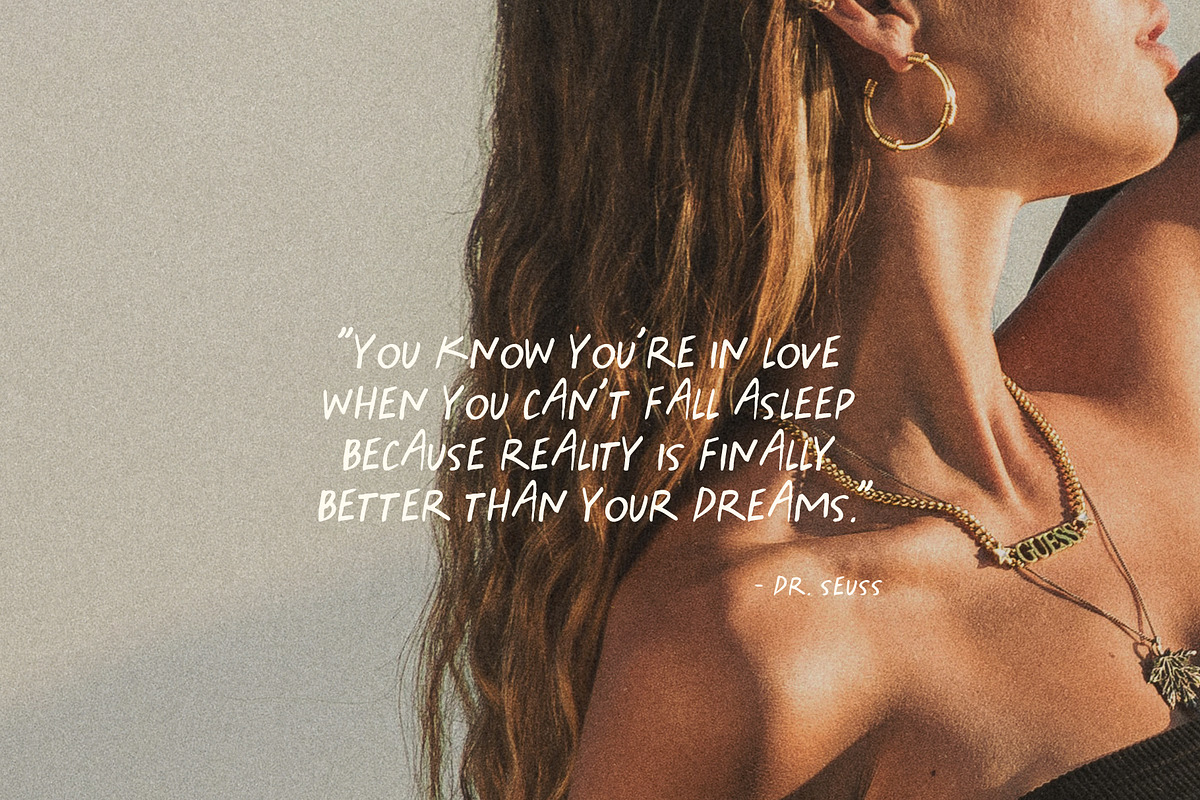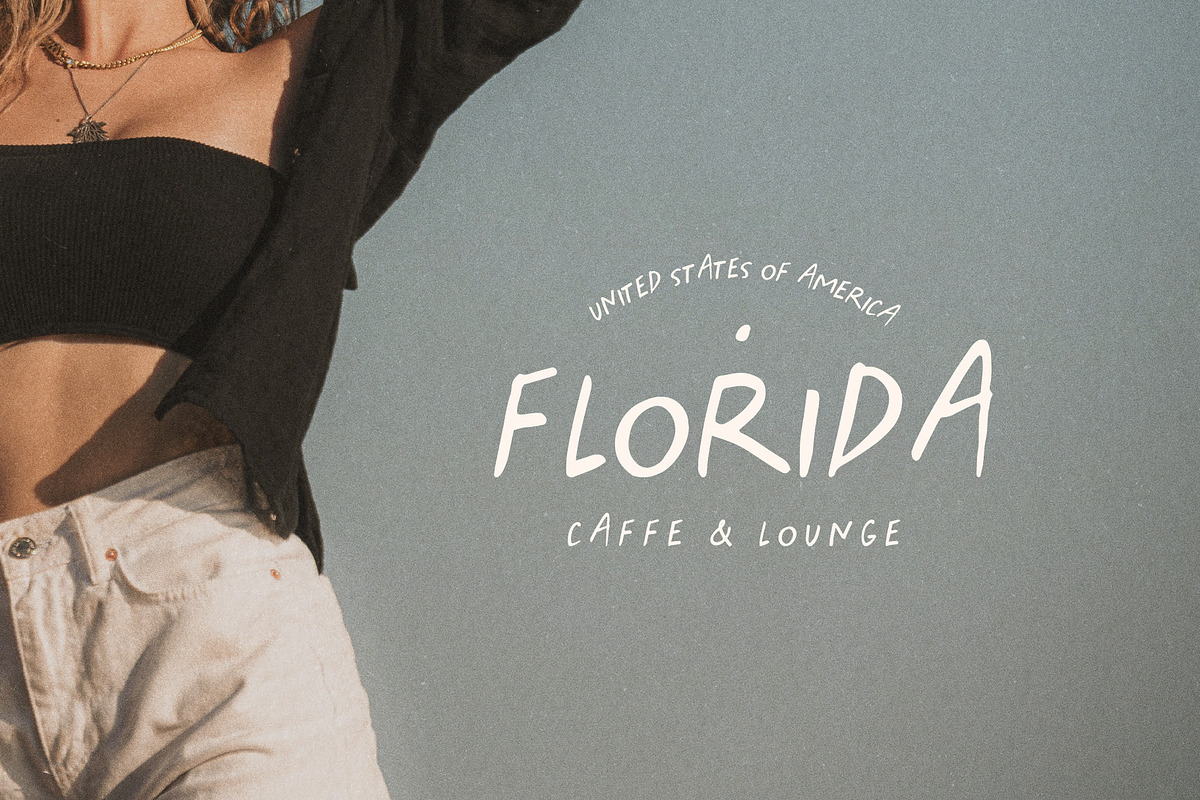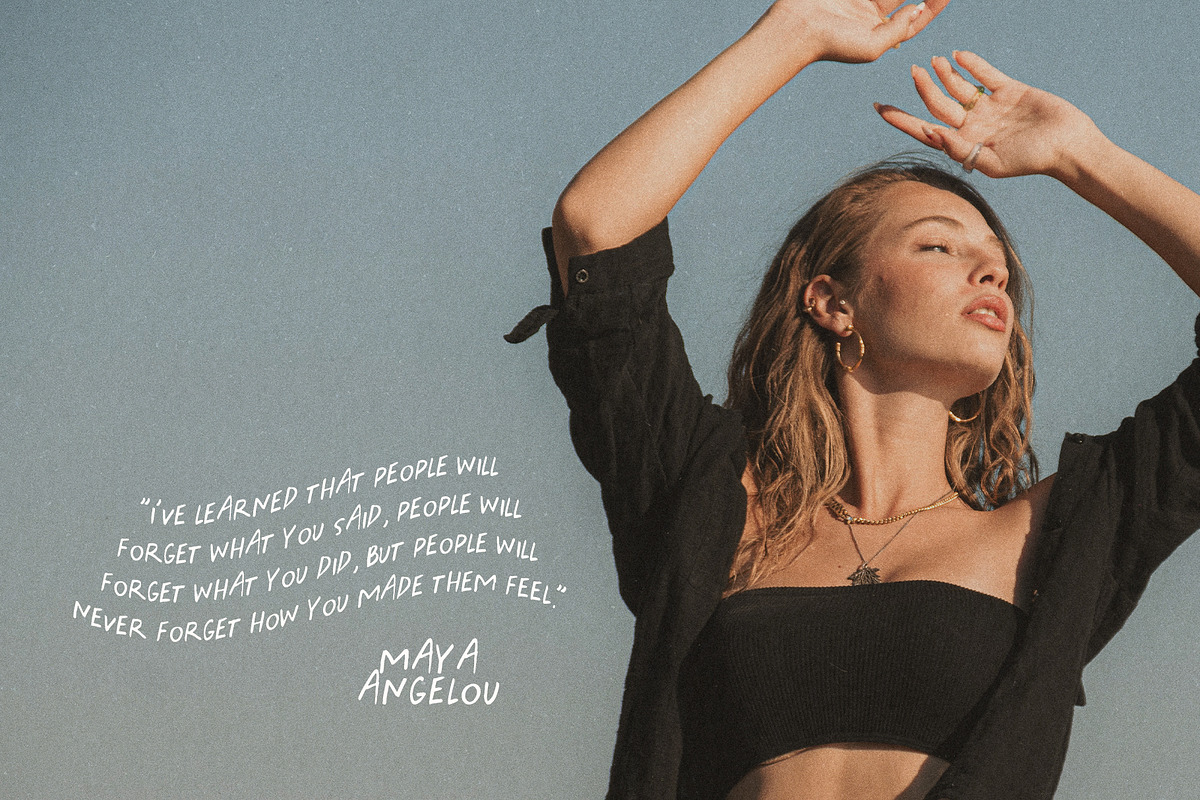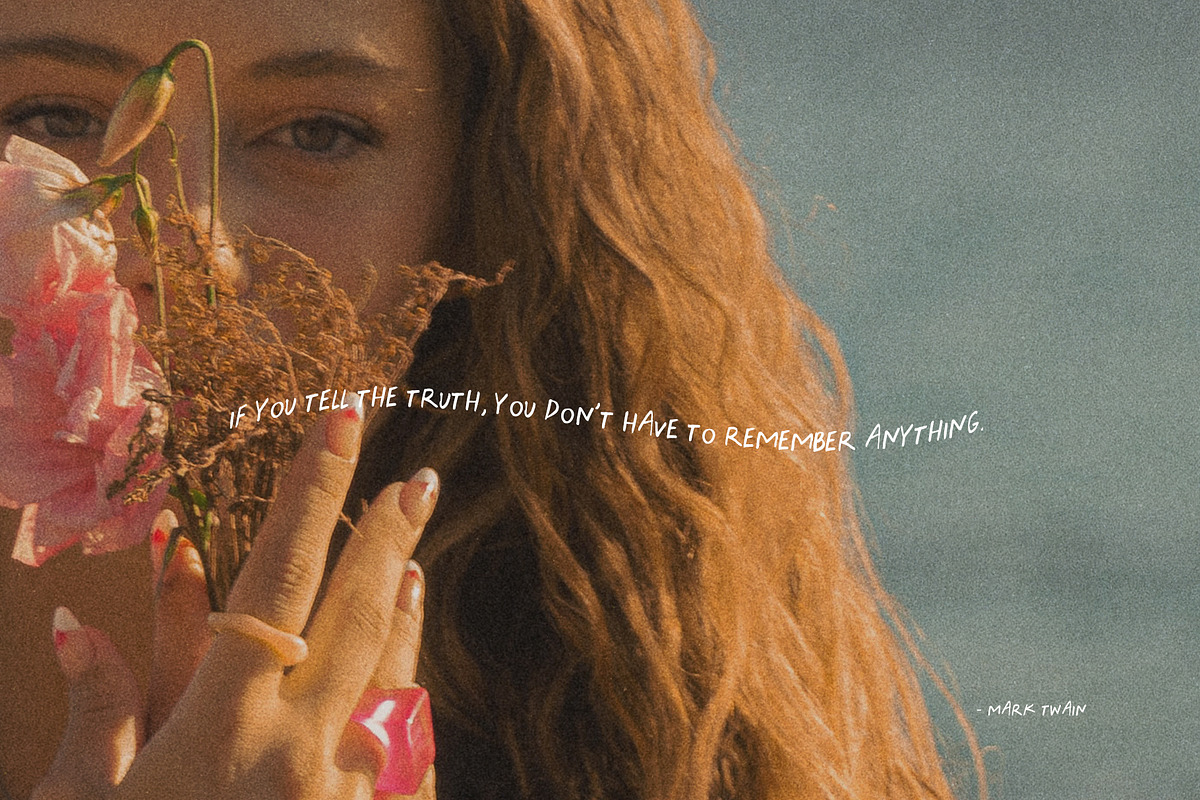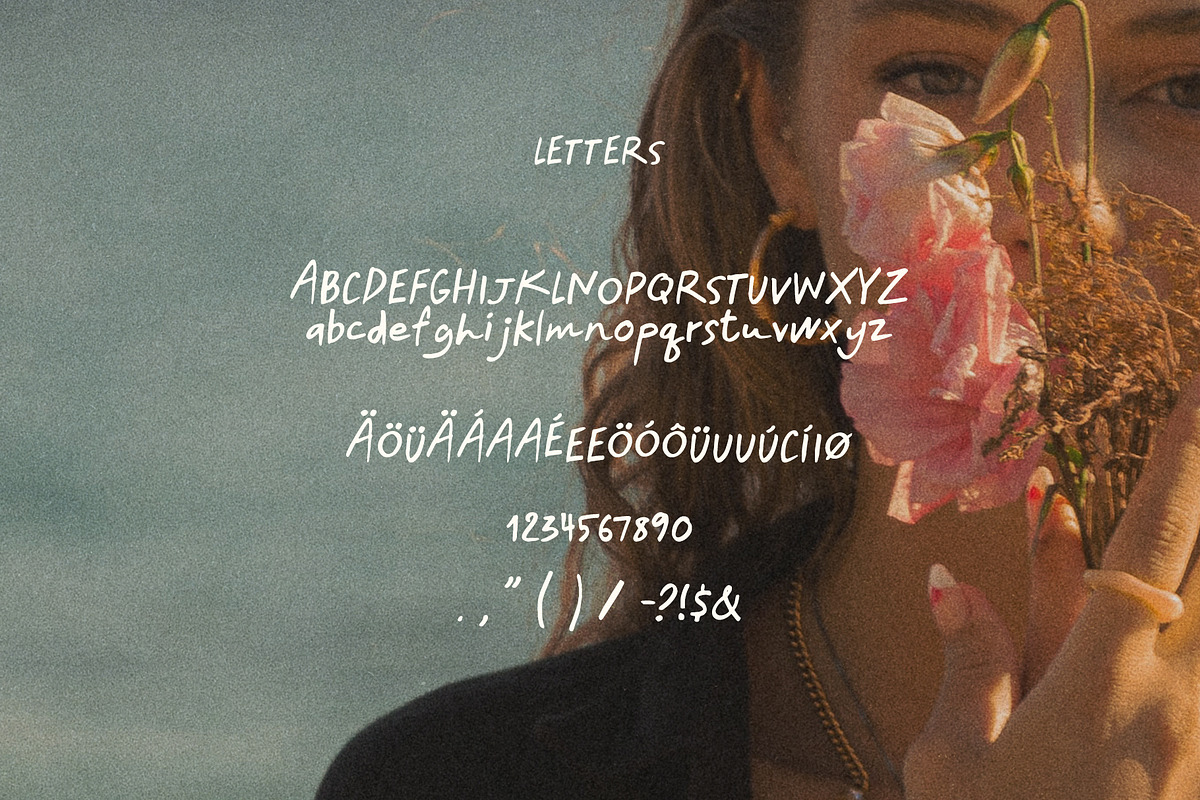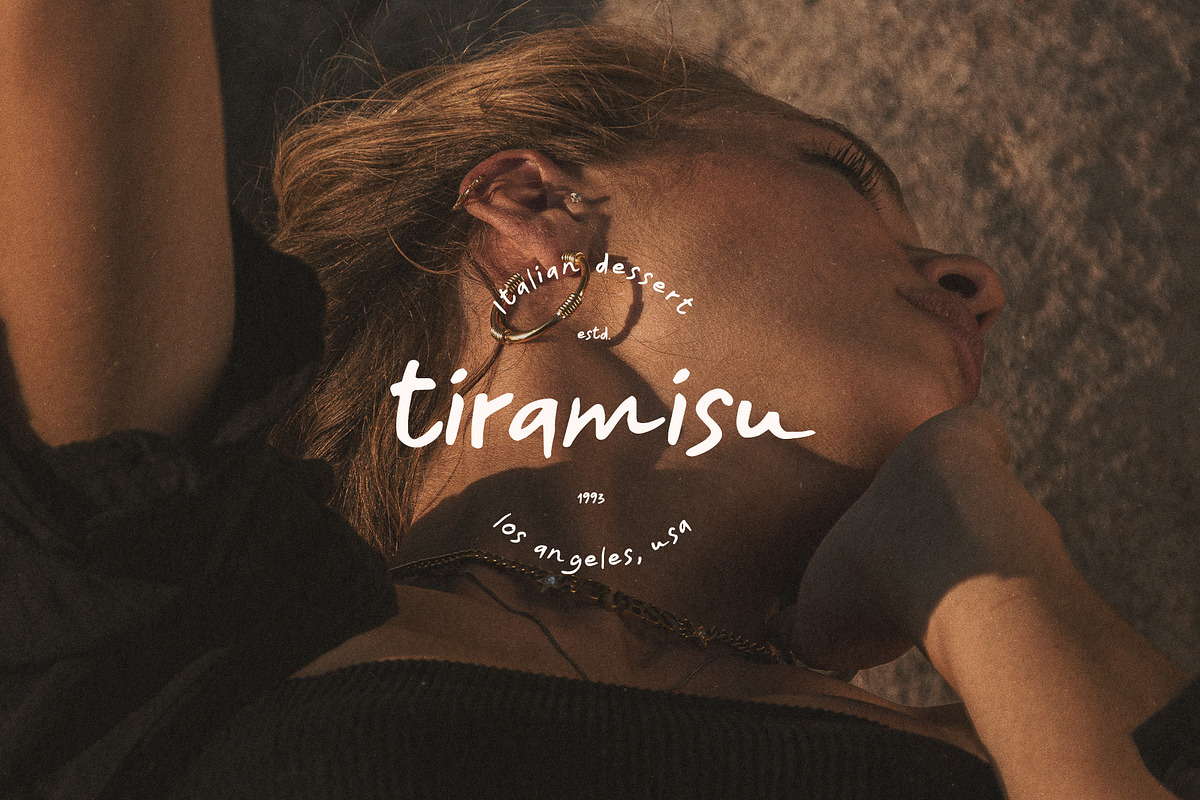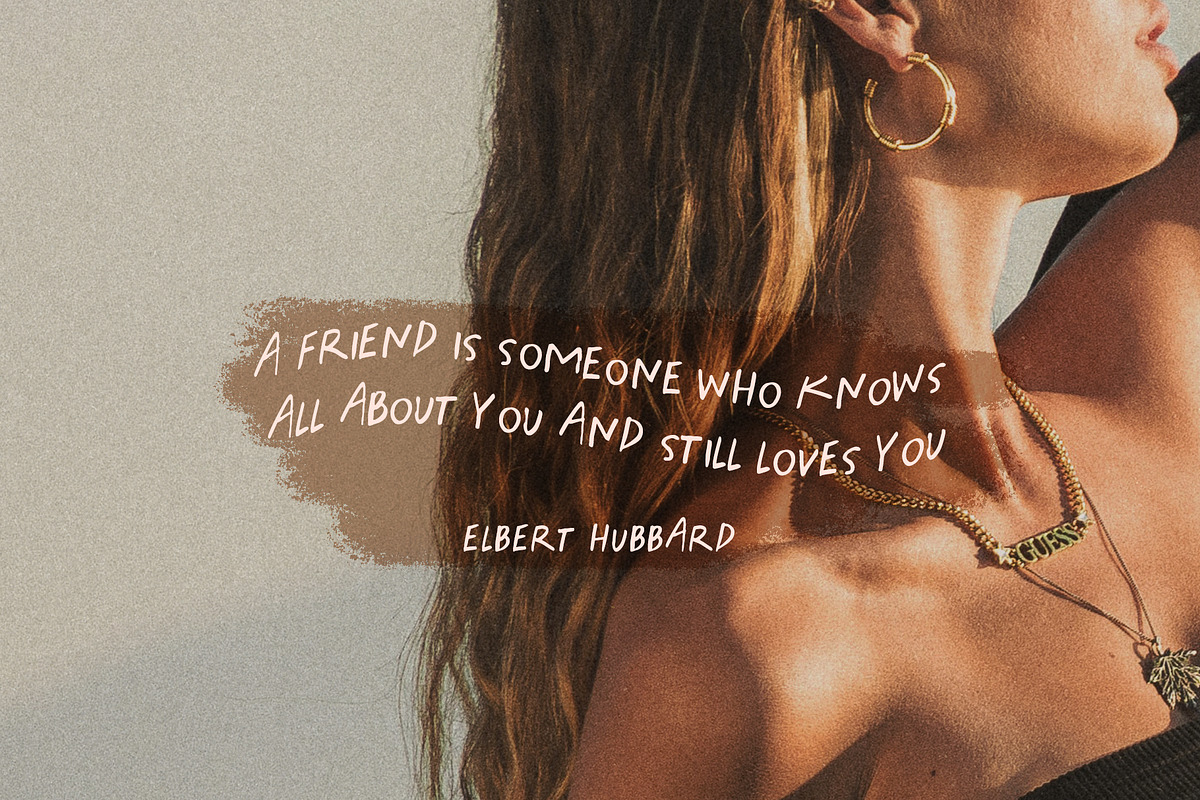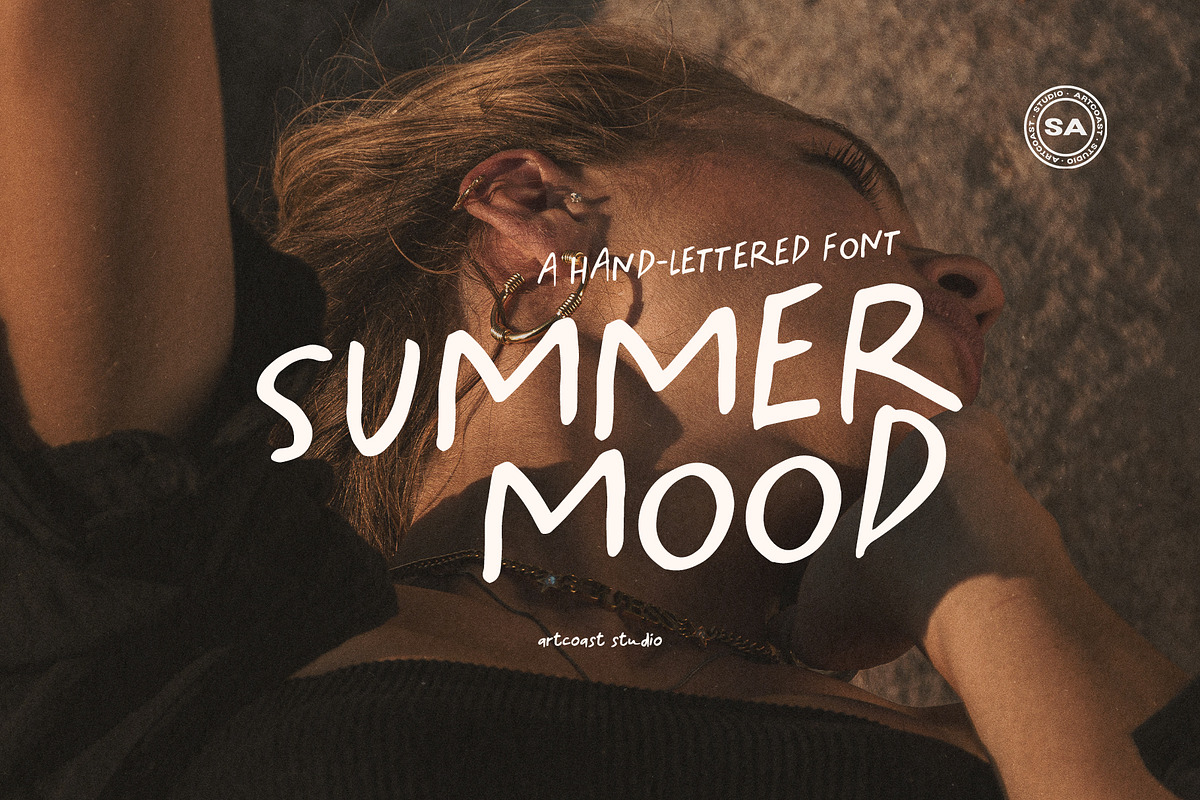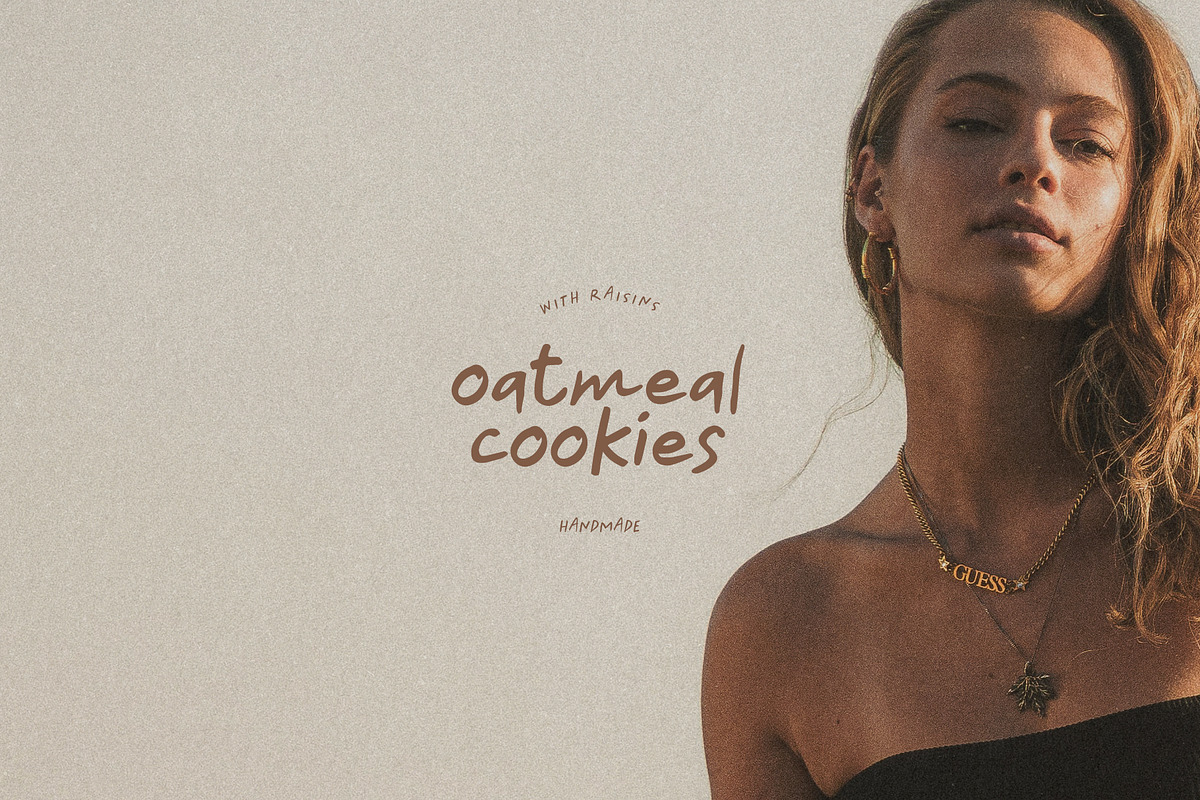
Summer Mood Handwritten Font
Summer Mood is a relaxed handwritten display font with loose, natural strokes and clear letterforms. Its warm, informal style works well for quotes, logos, packaging, posters, greeting cards, invitations, editorial accents, and social graphics.
Extended Latin characters: Å, Ä, Á, É, Ö, Ó, Ú, Ø, æ, œ, ä, ü, å, á, é, í, ó, ú, ñ, ß
Hand-drawn letter shapes designed to remain readable
Use Summer Mood when you need friendly, expressive typography with a casual summer personality.